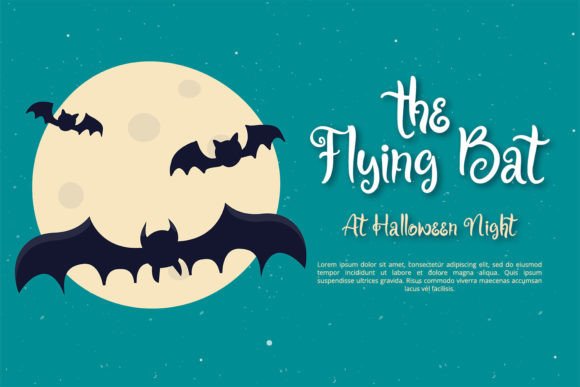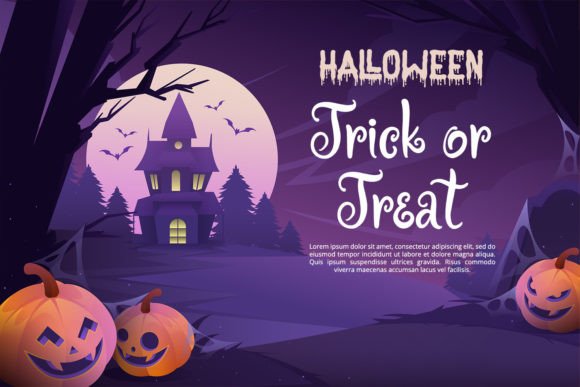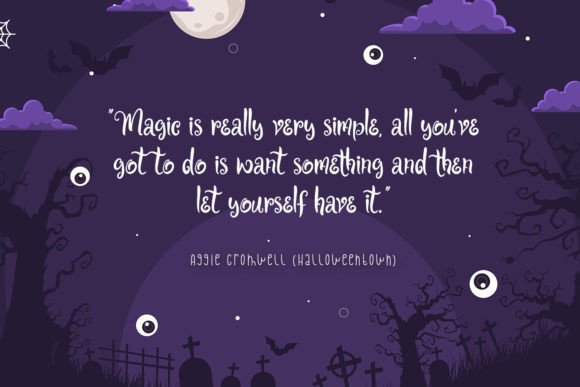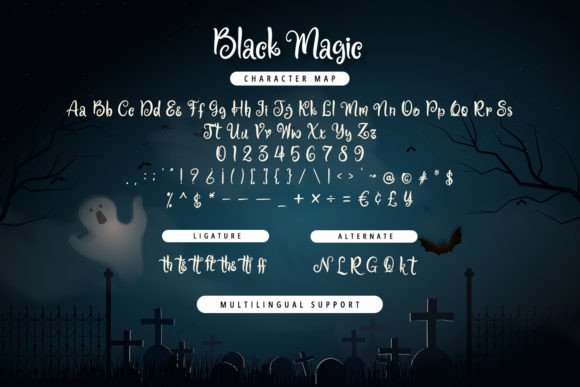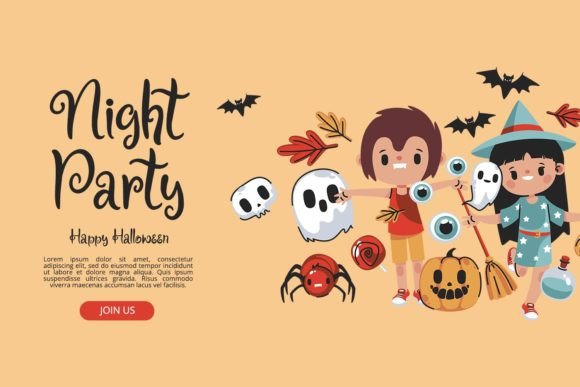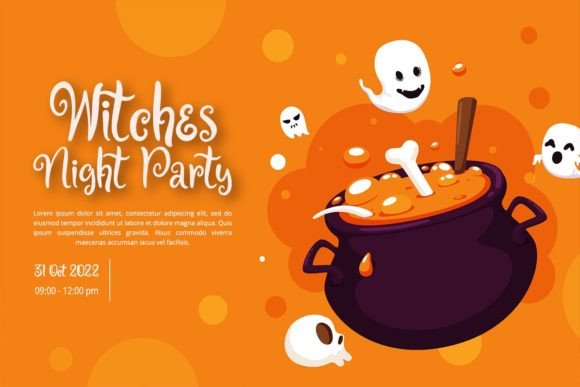
Unleash Your Creativity with Black Magic Font: A Playful Display Font
Are you a designer or crafter looking for a font that can add a touch of playfulness and whimsy to your projects? Look no further than the Black Magic Font. This stunning display font is perfect for a wide range of design projects, from branding and logos to lettering, logotypes, and more.
What is Black Magic Font?
Black Magic Font is a modern, playful display font that is designed to add a touch of magic to your designs. With its cute and playful feels, this font is perfect for designers and crafters who want to create unique and eye-catching projects. Whether you’re working on a branding project, creating a logo, or designing a poster, Black Magic Font is the perfect choice.
Key Features of Black Magic Font
So, what makes Black Magic Font so special? Here are just a few of its key features:
- Playful and Whimsical: Black Magic Font has a playful and whimsical feel that’s perfect for designers and crafters who want to add a touch of personality to their projects.
- Highly Versatile: This font is perfect for a wide range of design projects, from branding and logos to lettering, logotypes, and more.
- Easily Readable: Despite its playful feel, Black Magic Font is still highly readable, making it perfect for use in a variety of contexts.
- Unique and Eye-Catching: With its unique and eye-catching design, Black Magic Font is sure to help your projects stand out from the crowd.
Uses for Black Magic Font
So, what can you use Black Magic Font for? The possibilities are endless! Here are just a few ideas to get you started:
- Branding: Use Black Magic Font to create a unique and eye-catching brand identity that will help your business stand out.
- Logos: Create a custom logo for your business or project using Black Magic Font.
- Lettering: Use Black Magic Font to create beautiful, hand-lettered pieces that are perfect for posters, signs, and more.
- Logotypes: Create a custom logotype for your business or project using Black Magic Font.
- Clothing: Use Black Magic Font to create custom t-shirts, hoodies, and other clothing items.
- Posters: Create eye-catching posters using Black Magic Font.
- Magazines: Use Black Magic Font to add a touch of personality to your magazine designs.
- Packaging: Use Black Magic Font to create custom packaging for your products.
- Shopping Bags: Create custom shopping bags using Black Magic Font.
- T-Shirts: Use Black Magic Font to create custom t-shirts and other apparel.
- Book Covers: Use Black Magic Font to create eye-catching book covers.
- Photography: Use Black Magic Font to add a touch of personality to your photography projects.
- Special Events: Use Black Magic Font to create custom signage, invitations, and other materials for special events.
Why Choose Black Magic Font?
So, why should you choose Black Magic Font for your next project? Here are just a few reasons:
- Unique and Eye-Catching: Black Magic Font is a unique and eye-catching font that will help your projects stand out from the crowd.
- Highly Versatile: This font is perfect for a wide range of design projects, from branding and logos to lettering, logotypes, and more.
- Easily Readable: Despite its playful feel, Black Magic Font is still highly readable, making it perfect for use in a variety of contexts.
In conclusion, Black Magic Font is a stunning and playful display font that is perfect for designers and crafters who want to add a touch of magic to their projects. With its cute and playful feels, highly versatile design, and easily readable text, Black Magic Font is the perfect choice for a wide range of design projects. Whether you’re working on a branding project, creating a logo, or designing a poster, Black Magic Font is sure to help you unleash your creativity and create something truly special.